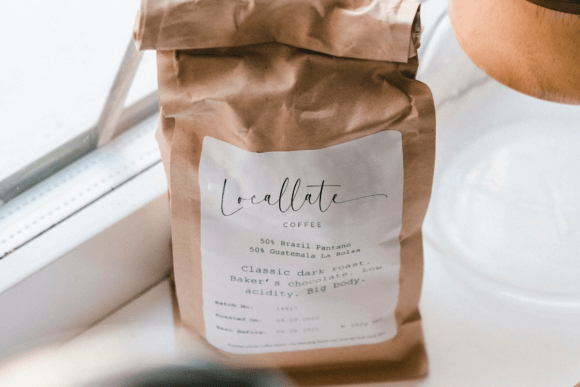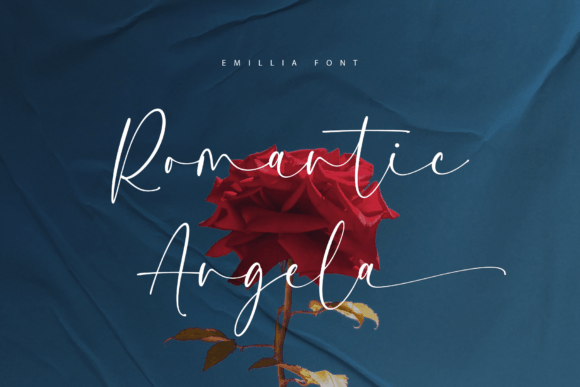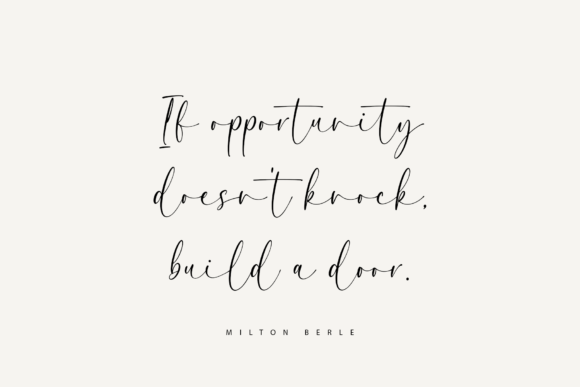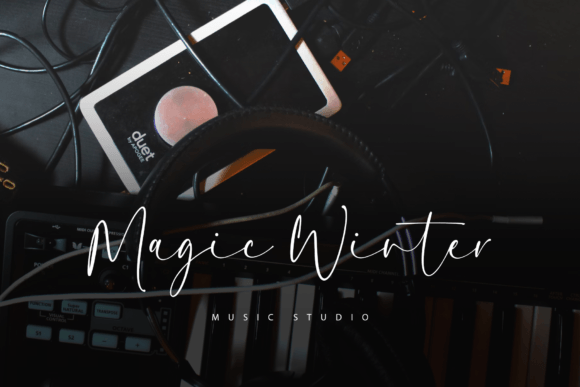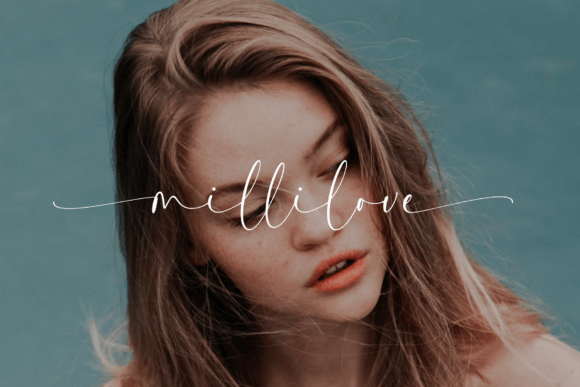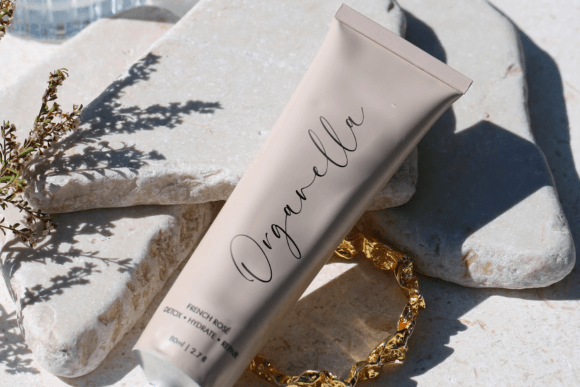
Introducing Emillia Font: The Ultimate Chic and Elegant Calligraphy Font
Are you a designer or crafter looking for a font that exudes elegance and sophistication? Look no further than Emillia Font, a stunning calligraphy font perfect for a wide range of design projects. From wedding invitations to branding, posters, and more, Emillia Font is the ideal choice for anyone seeking a touch of luxury and refinement.
What Makes Emillia Font So Special?
Emillia Font is a beautifully crafted calligraphy font that boasts a range of impressive features. This font is designed to make your designs stand out, with a chic and elegant style that is sure to impress. Here are just a few of the key features that make Emillia Font so special:
- Beautiful Beginning and Ending Swashes: Emillia Font comes with gorgeous beginning and ending swashes that add a touch of elegance to any design.
- Fully Uppercase and Lowercase: This font includes both uppercase and lowercase letters, giving you complete flexibility when it comes to designing your project.
- Numbers and Punctuation: Emillia Font also includes numbers and punctuation, making it a comprehensive font that has everything you need.
- Ligature: The font comes with ligature, which allows you to create stunning connections between letters.
Emillia Font is the perfect choice for designers and crafters who want to add a touch of elegance and sophistication to their projects. Whether you’re creating wedding invitations, branding materials, posters, or anything else, this font is sure to impress. Here are just a few examples of how you can use Emillia Font:
- Wedding Invitations: Create beautiful and elegant wedding invitations that set the tone for a stunning celebration.
- Branding: Use Emillia Font to create a luxurious and sophisticated brand identity that stands out from the crowd.
- Posters: Design eye-catching posters that showcase your message in style.
- Stationery: Create gorgeous stationery that is perfect for personal or business use.
Why Choose Emillia Font?
With so many fonts on the market, why choose Emillia Font? Here are just a few reasons why this font stands out from the rest:
- Unique and Elegant Style: Emillia Font boasts a unique and elegant style that is sure to make your designs stand out.
- High-Quality Design: This font is designed to the highest standards, ensuring that it looks great in any design.
- Versatile: This font can be used for a wide range of design projects, making it a great addition to any design library.
In conclusion, Emillia Font is a stunning calligraphy font that is perfect for designers and crafters who want to add a touch of elegance and sophistication to their projects. With its beautiful beginning and ending swashes, fully uppercase and lowercase letters, numbers and punctuation, ligature, and PUA encoding, this font has everything you need to create stunning designs. Whether you’re creating wedding invitations, branding materials, posters, or anything else, Emillia Font is the ideal choice.